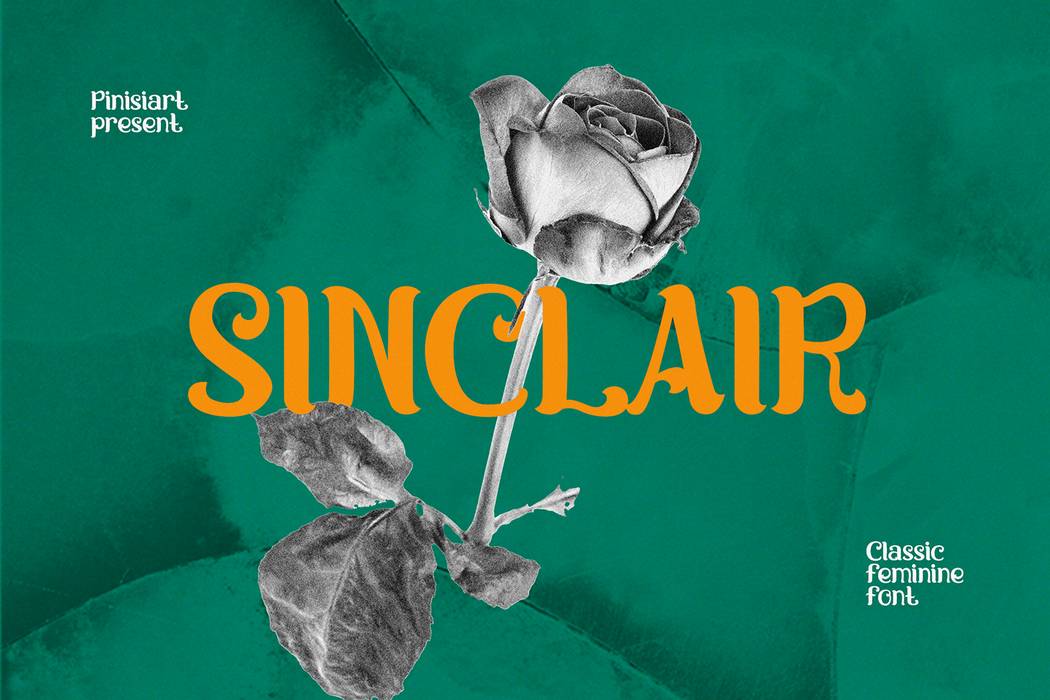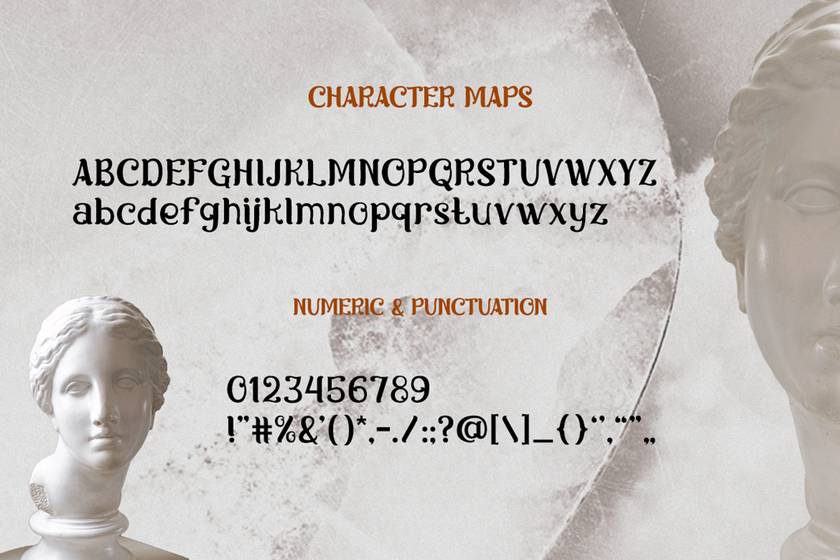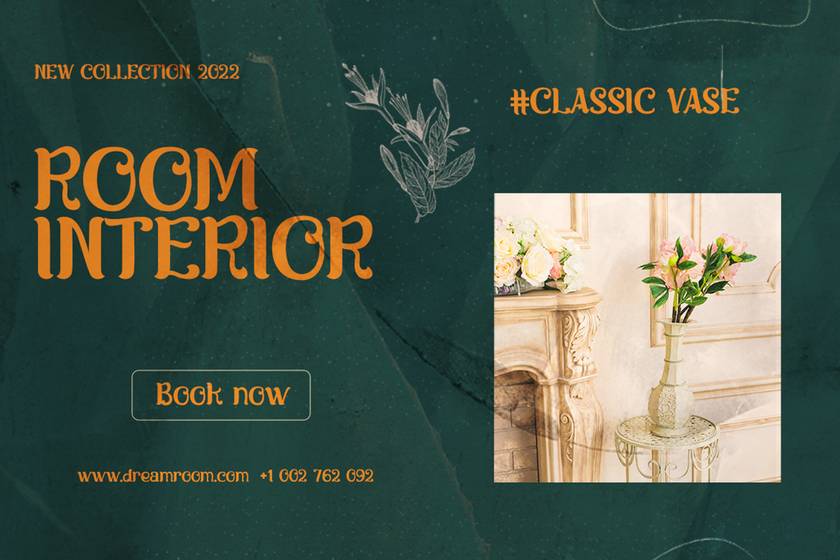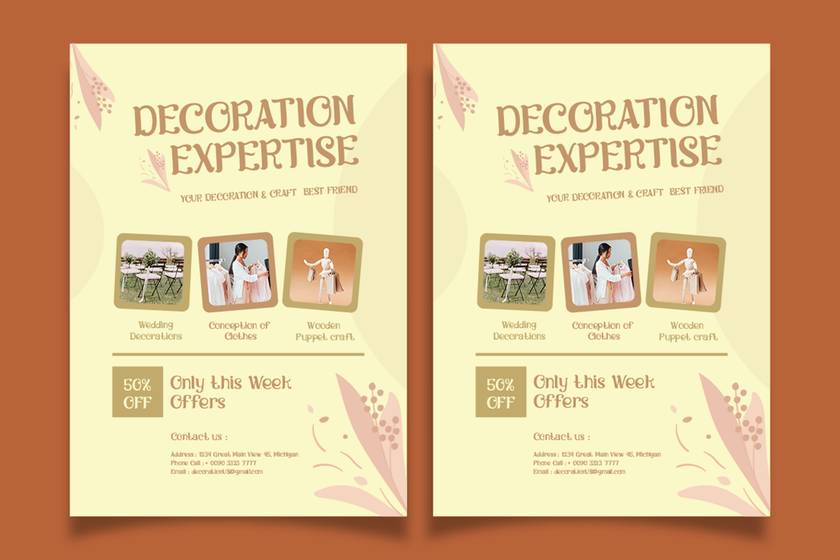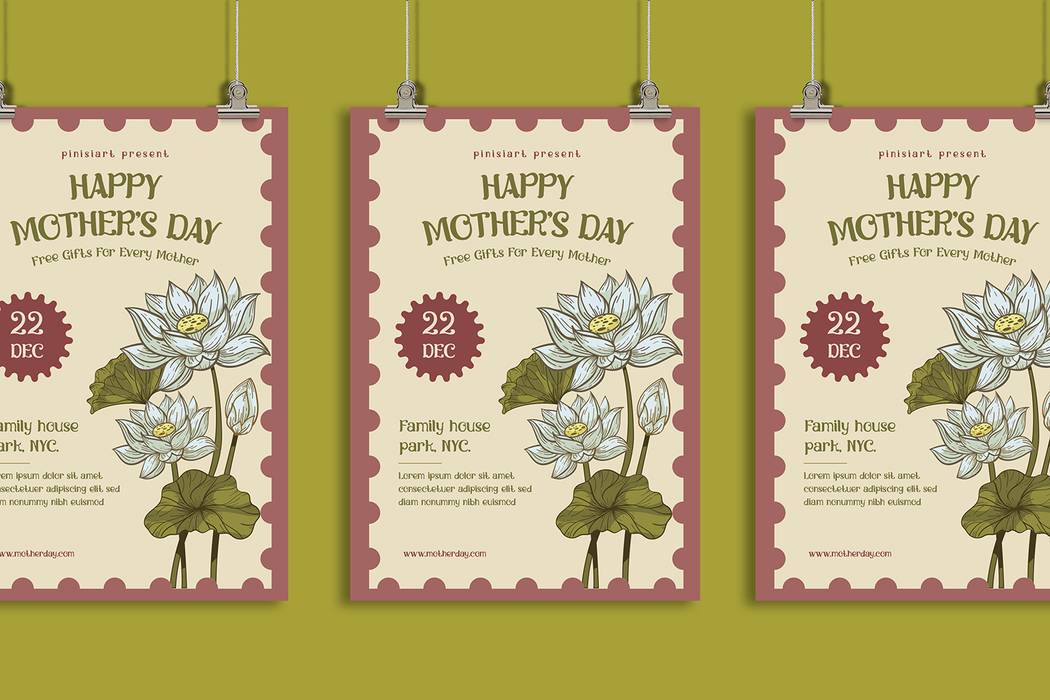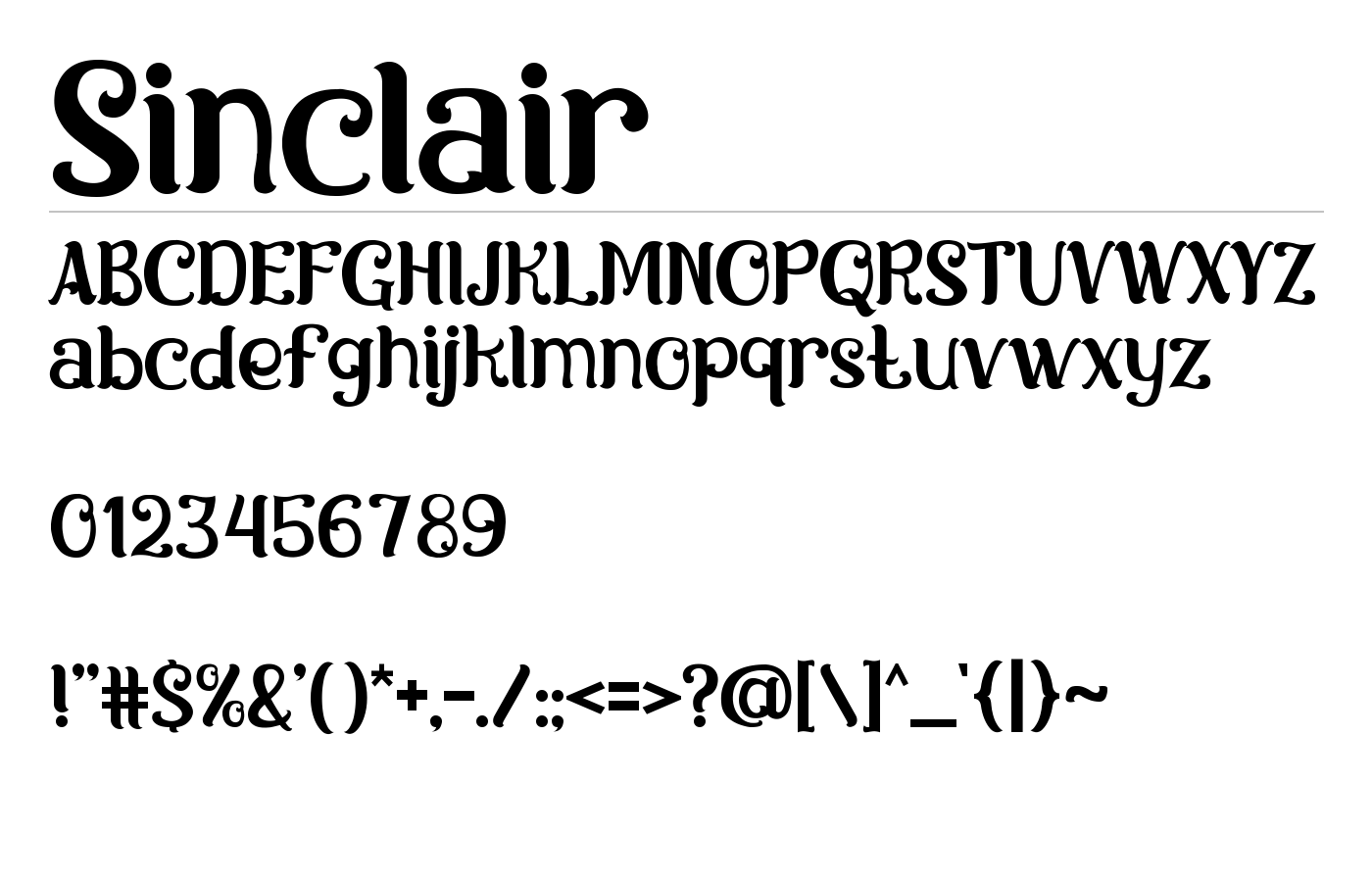
Sinclair is a bold serif font with a playful, vintage character, featuring distinctive curled terminals and moderate stroke contrast that give it a lively, whimsical feel. Its clear letterforms with both uppercase and lowercase support make it ideal for eye-catching headlines, logos, and branding projects seeking a charming and unique personality. This font works well where a blend of elegance and fun is desired, such as in creative editorial designs or boutique packaging.
| Font family | Sinclair Font |
| Release date | 2022-05-06 |
| Designer | PINISIART Team |